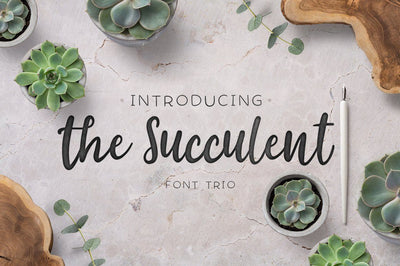
The succulent - font trio!
The Succulent font trio!
This time I present to you a very special creation for me, the one and only: succulent font trio! As you can see, is a very feminine, earthy and stylish font that you can use for every design you desire, like: wedding invites, social media, scrapbooks, overlays for photos and more.
The three are perfect for each other, you can pair them and they'll work beautifully together.
- Pair them in any design you are working on
- Give your work a feminine and natural touch
- Create the most beautiful cards, wedding invites, shirts and more!
- This is a multilingual font that also includes ligatures